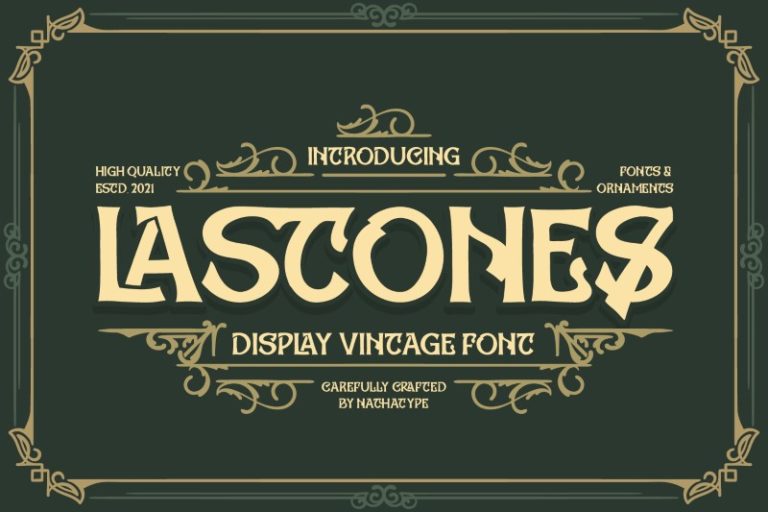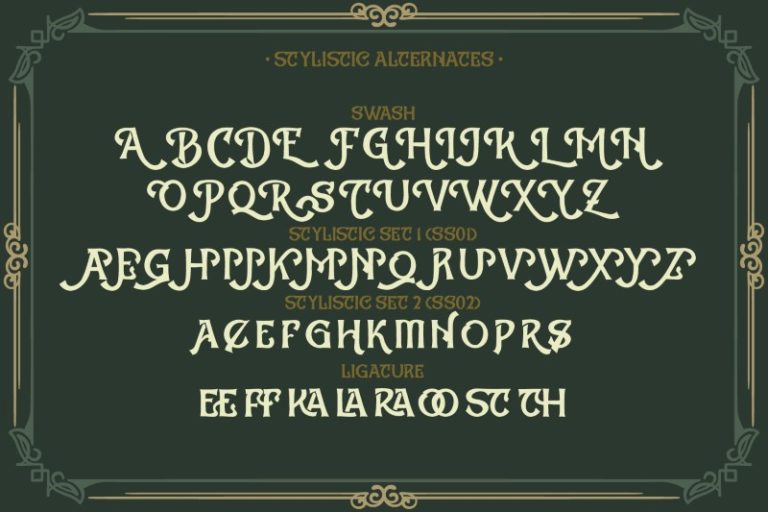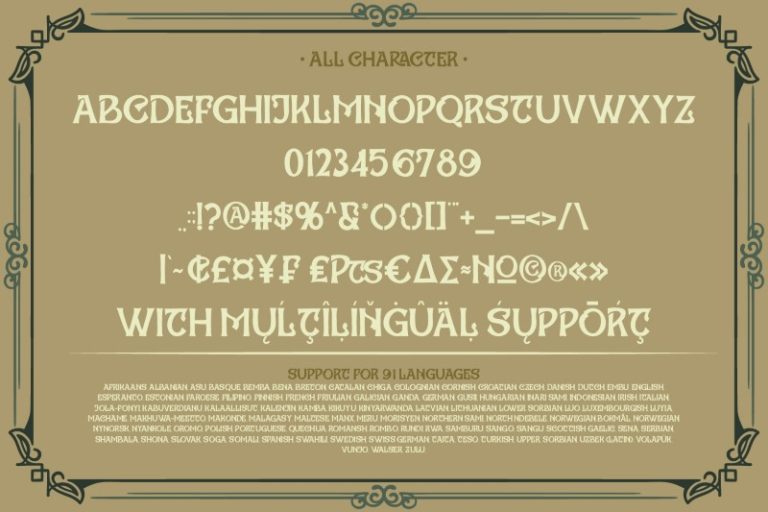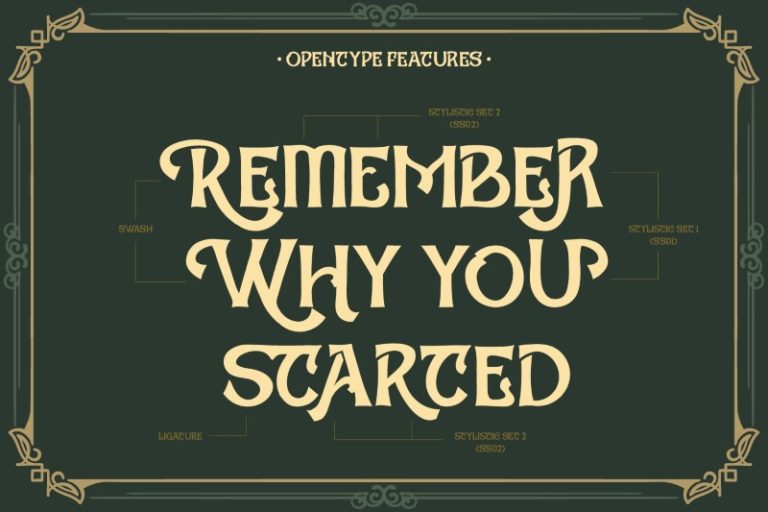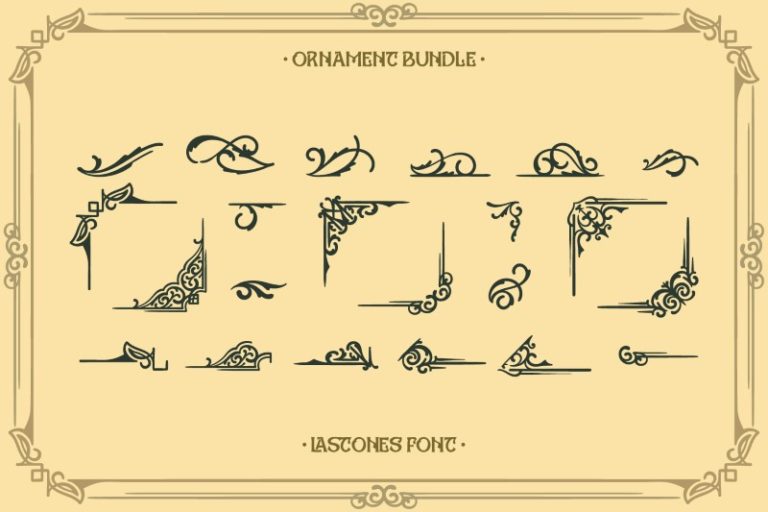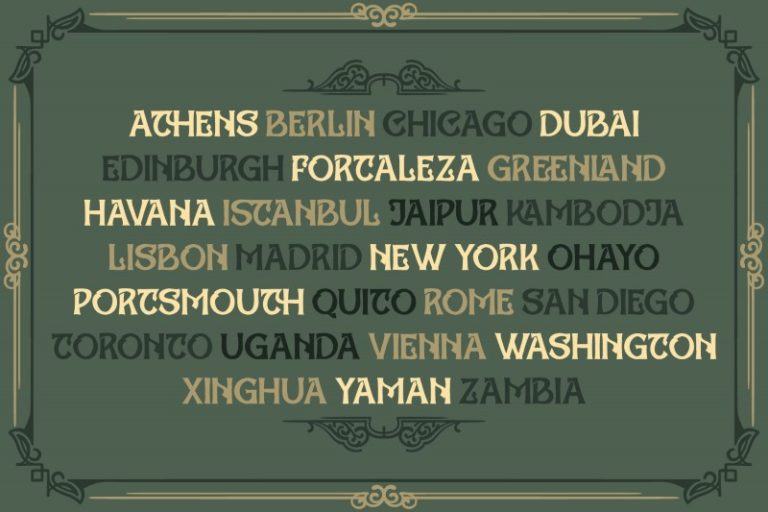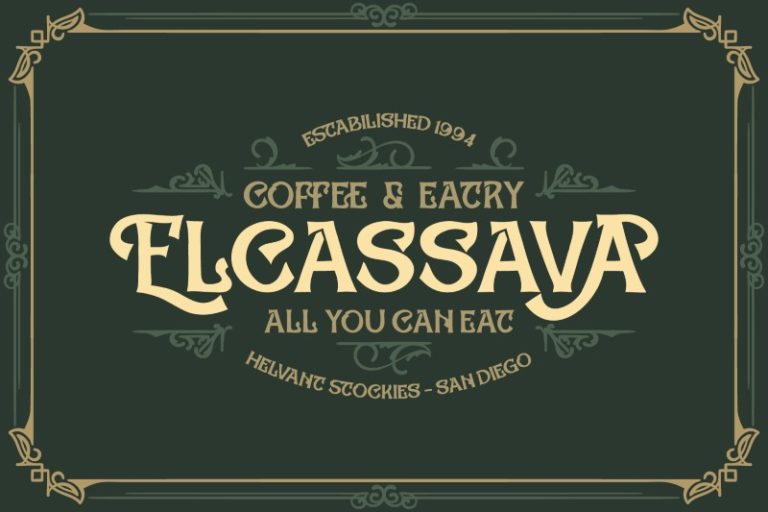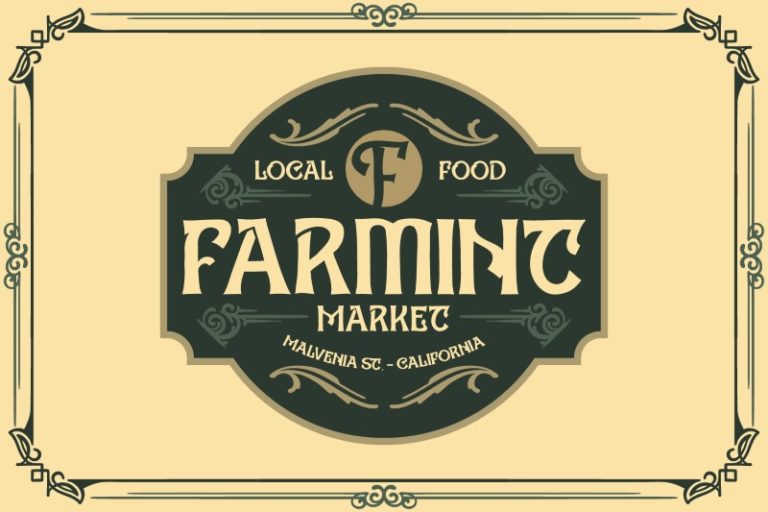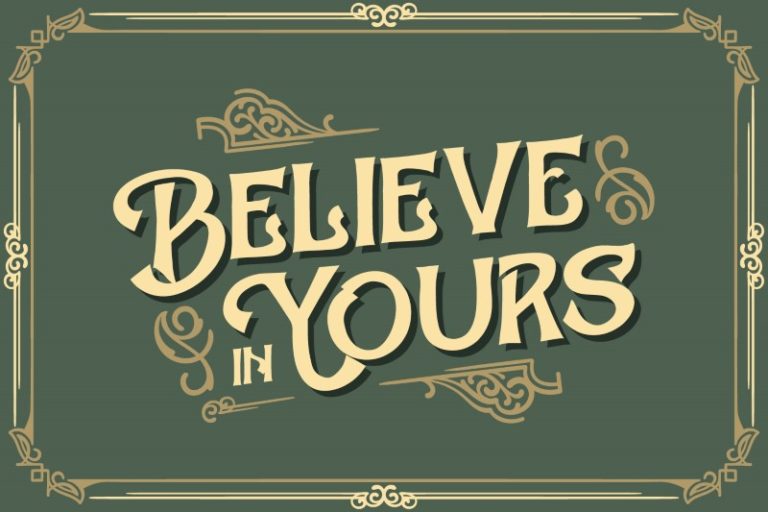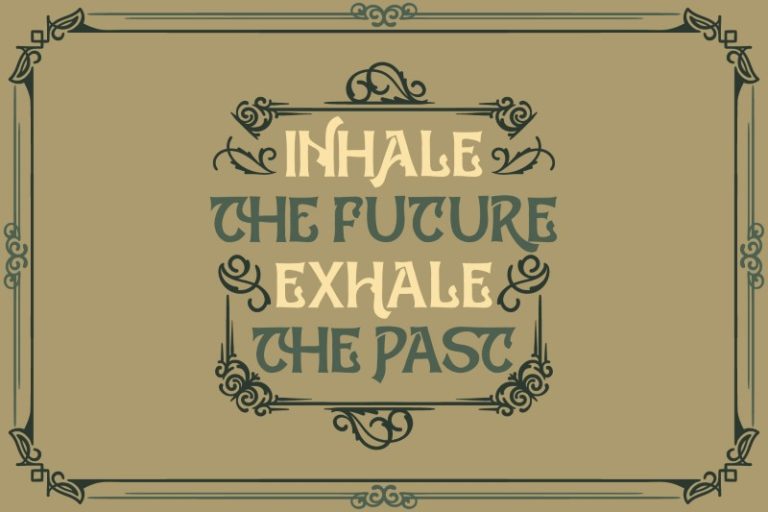
Lastones – Art Nouveau Vintage Display Font
Lastones
Lastones ornament
Lastones – A Vintage Font
Lastones vintage font is a typeface that is made all characters in uppercase. An excellent choice to add the right amount of retro touch. This typeface with artistic style looks very interesting for loads of different projects and promotions. A great all-in-one package for your logo, book cover, poster, t-shirt, branding, and advertisement needs.
- Ligatures
- Swashes
- Stylistic Set
- Bonus Ornament
- Numerals and Punctuation